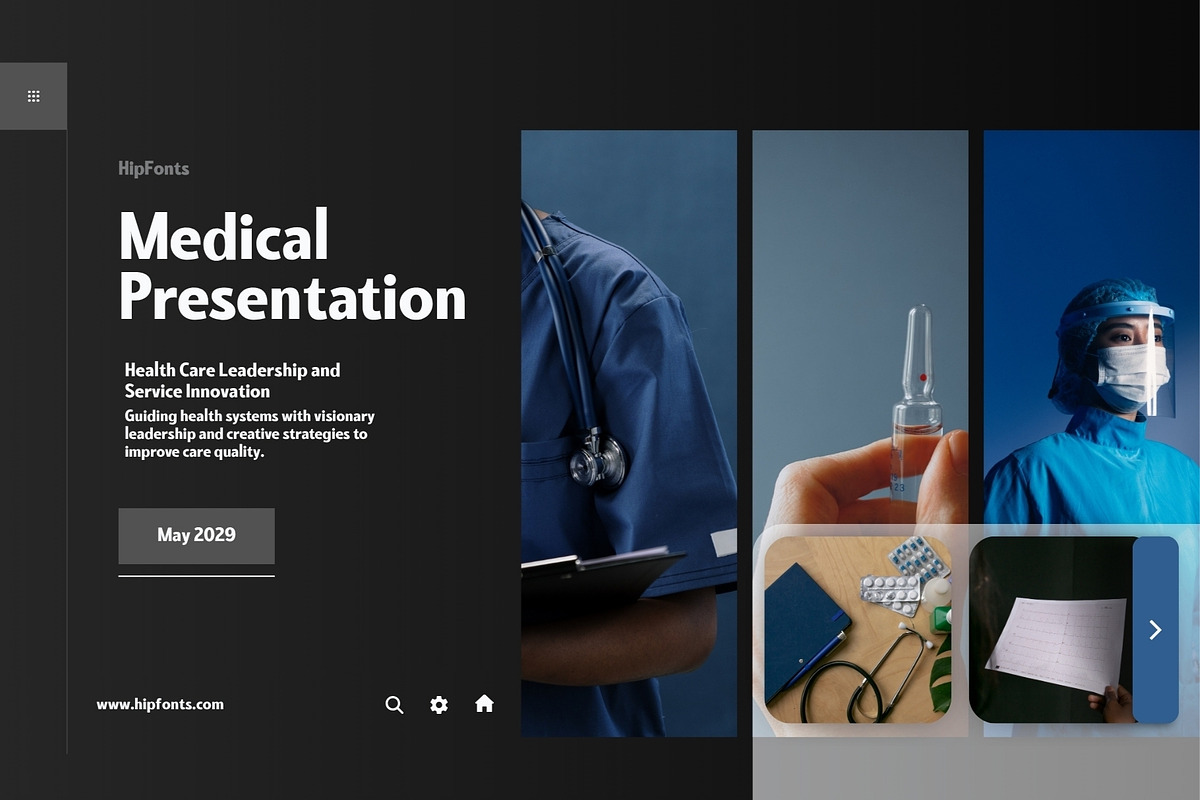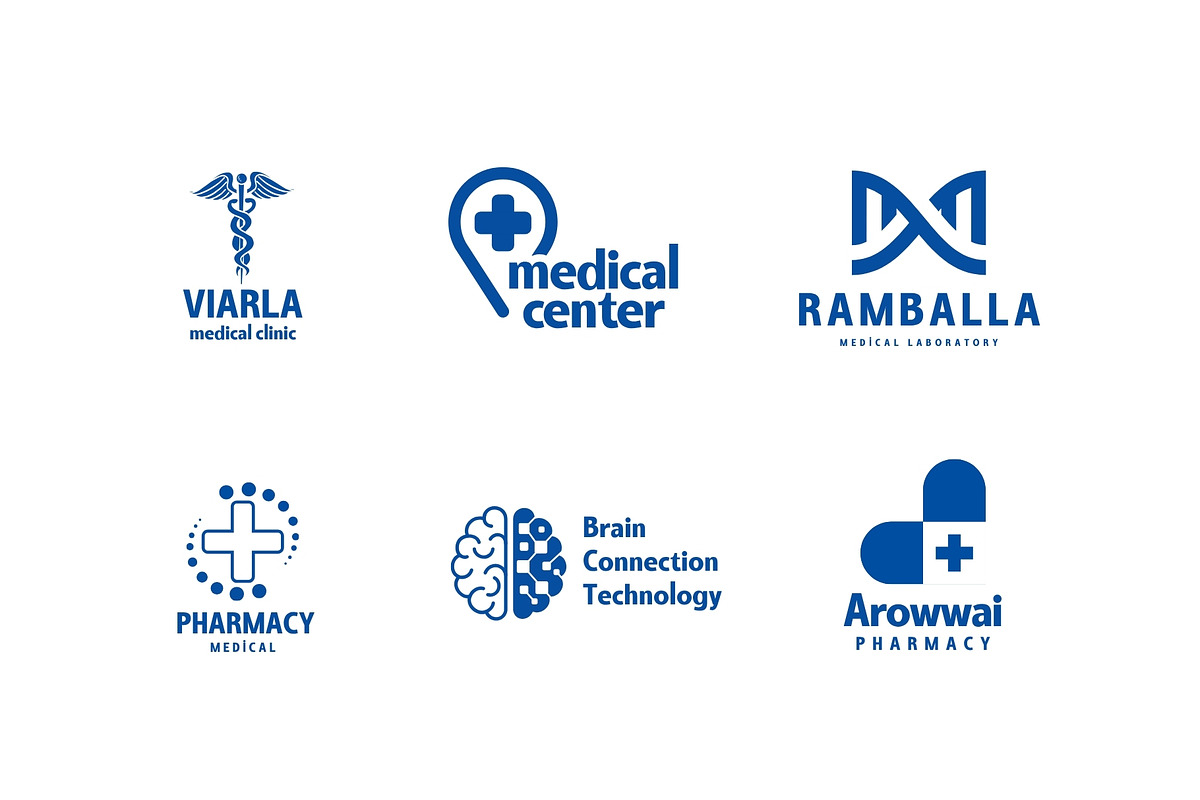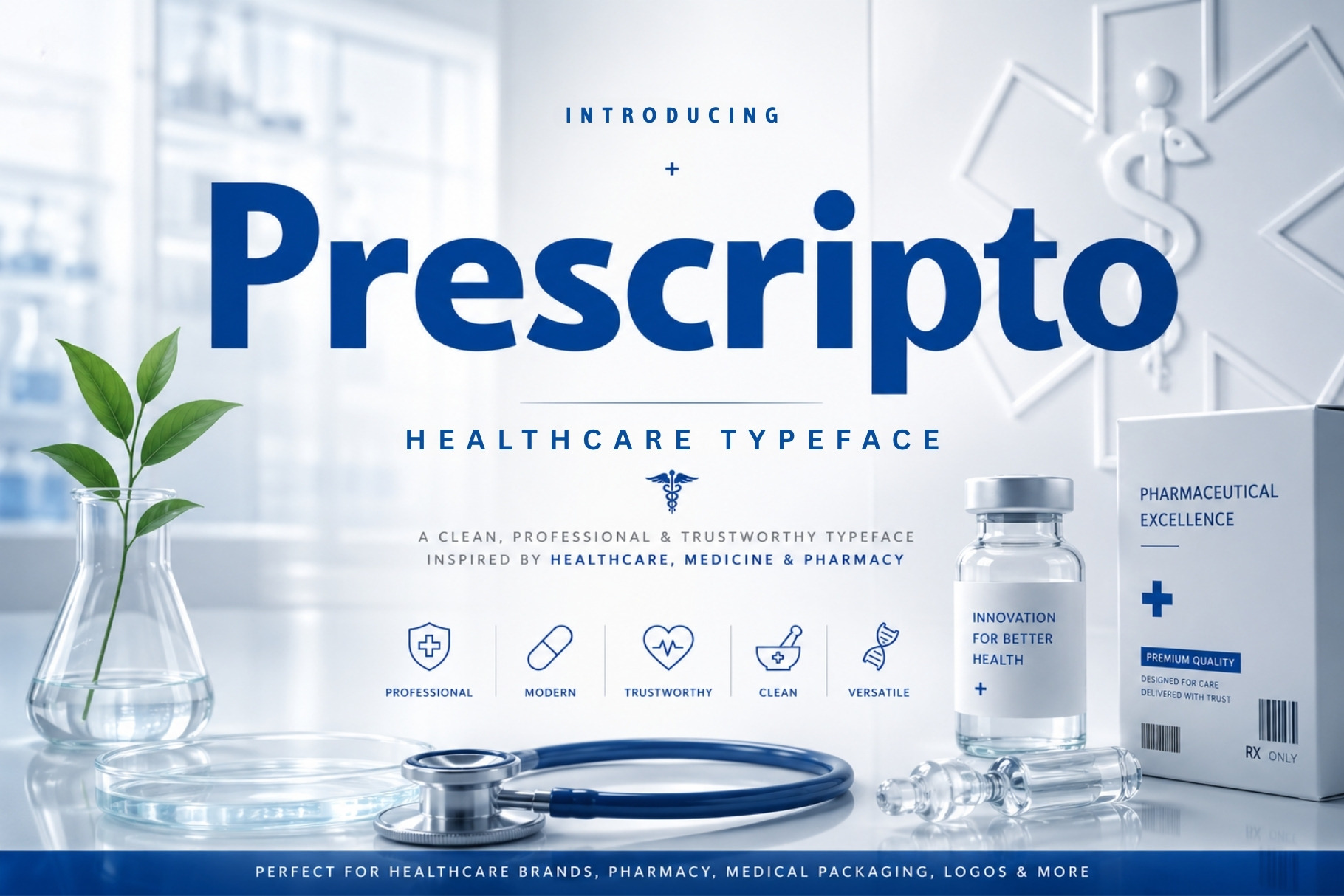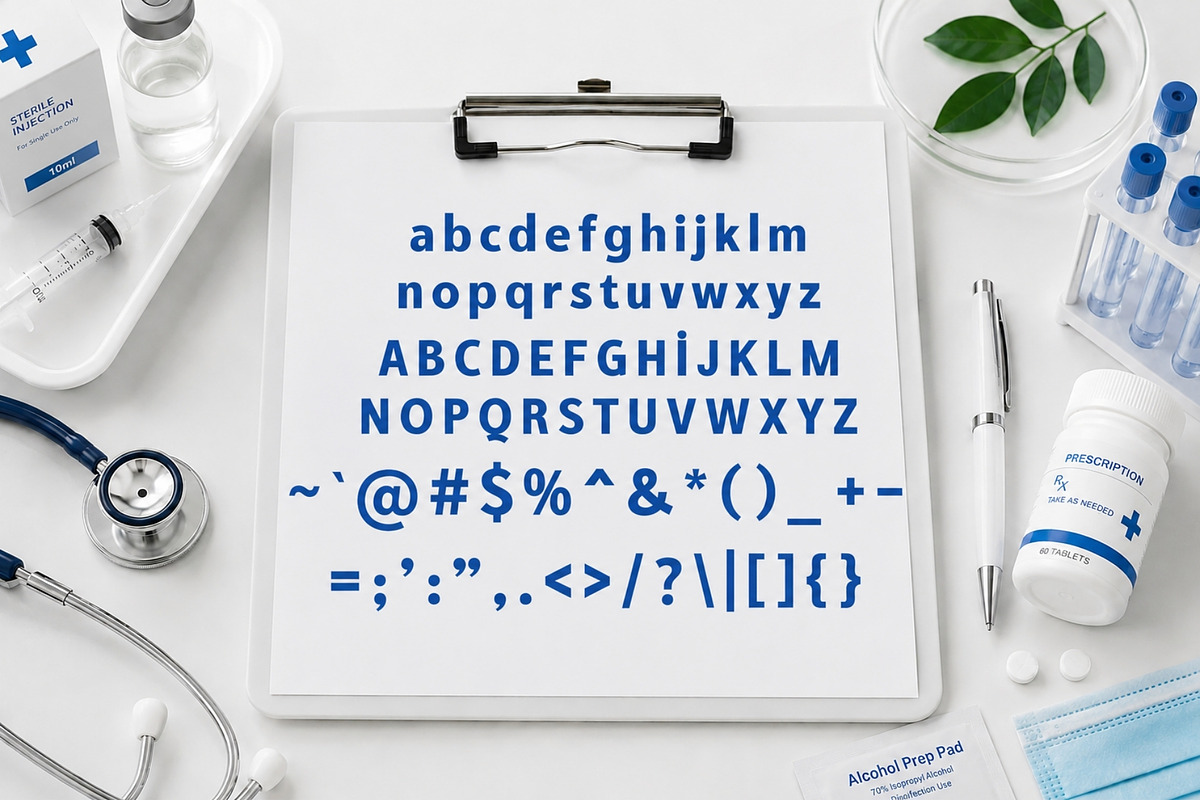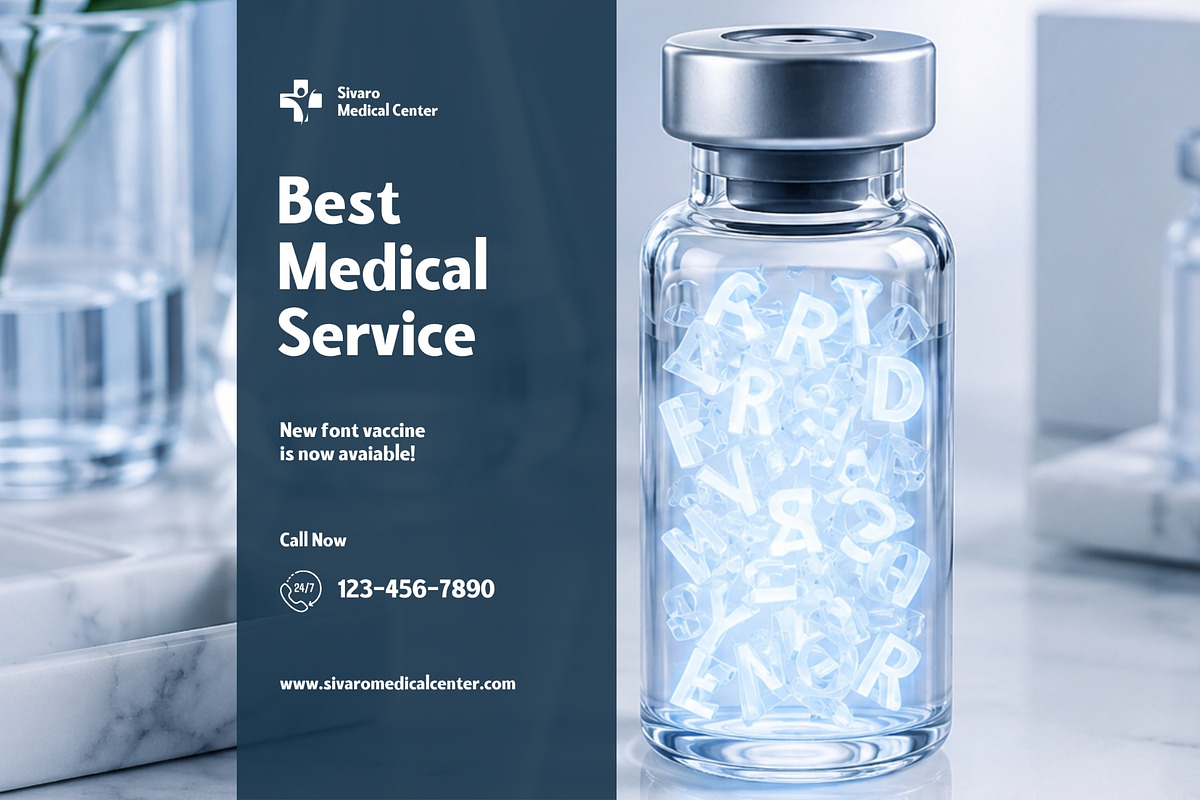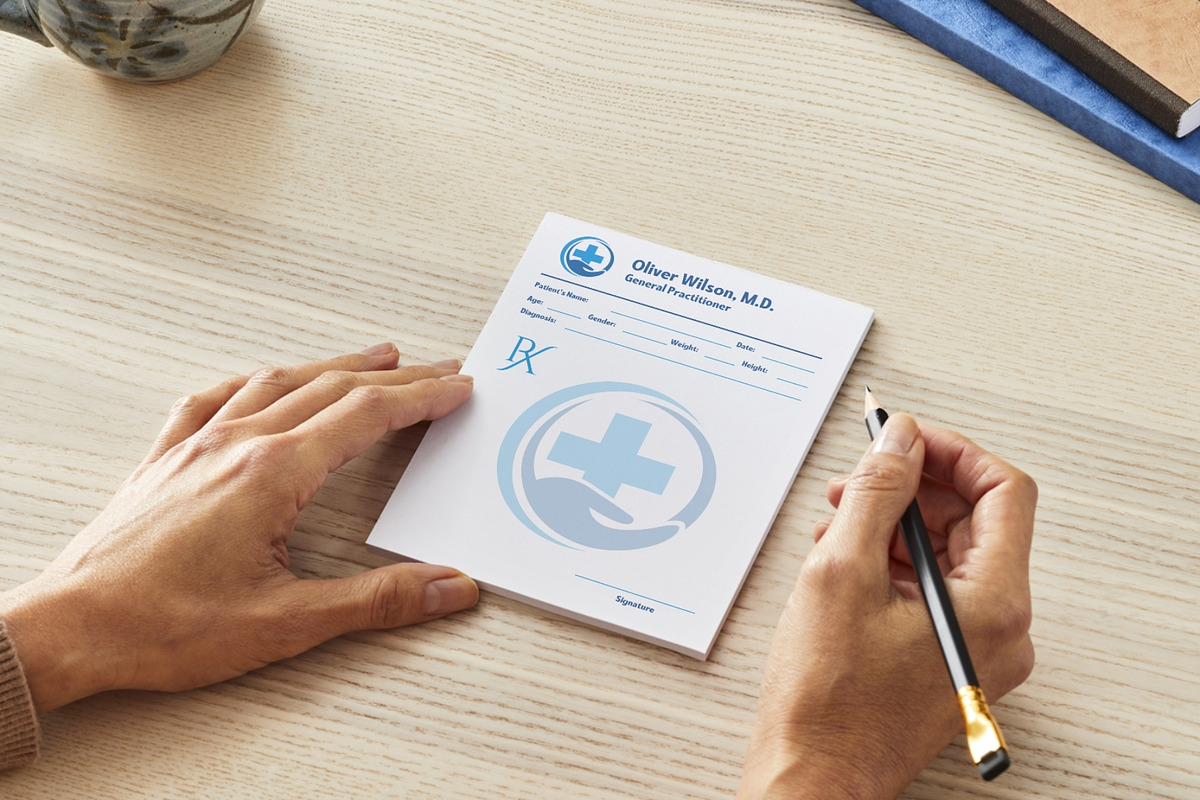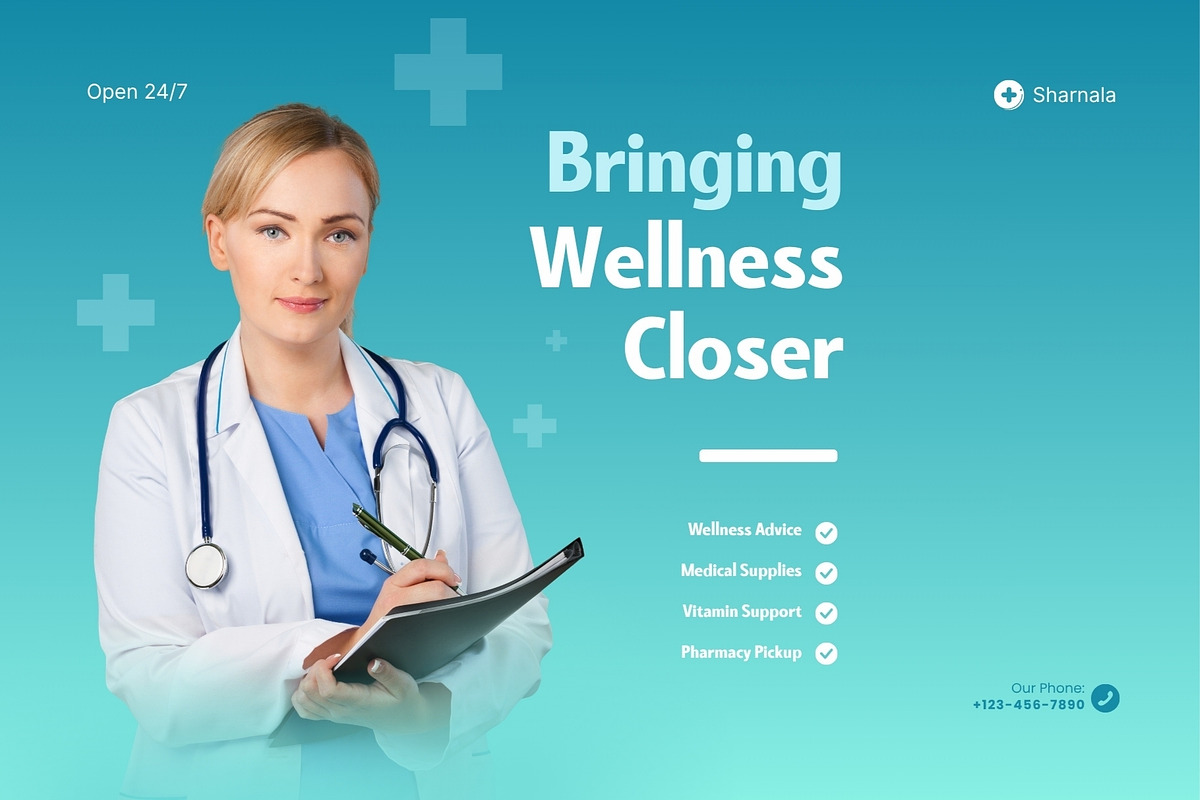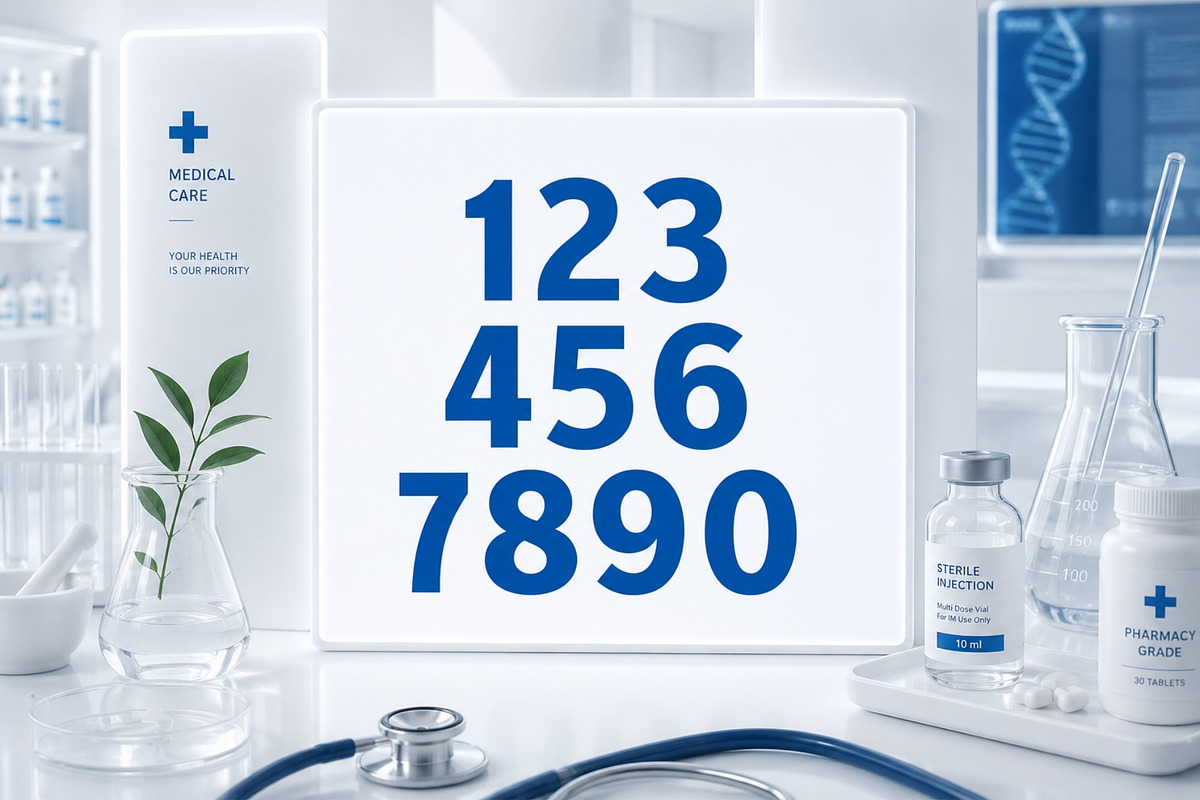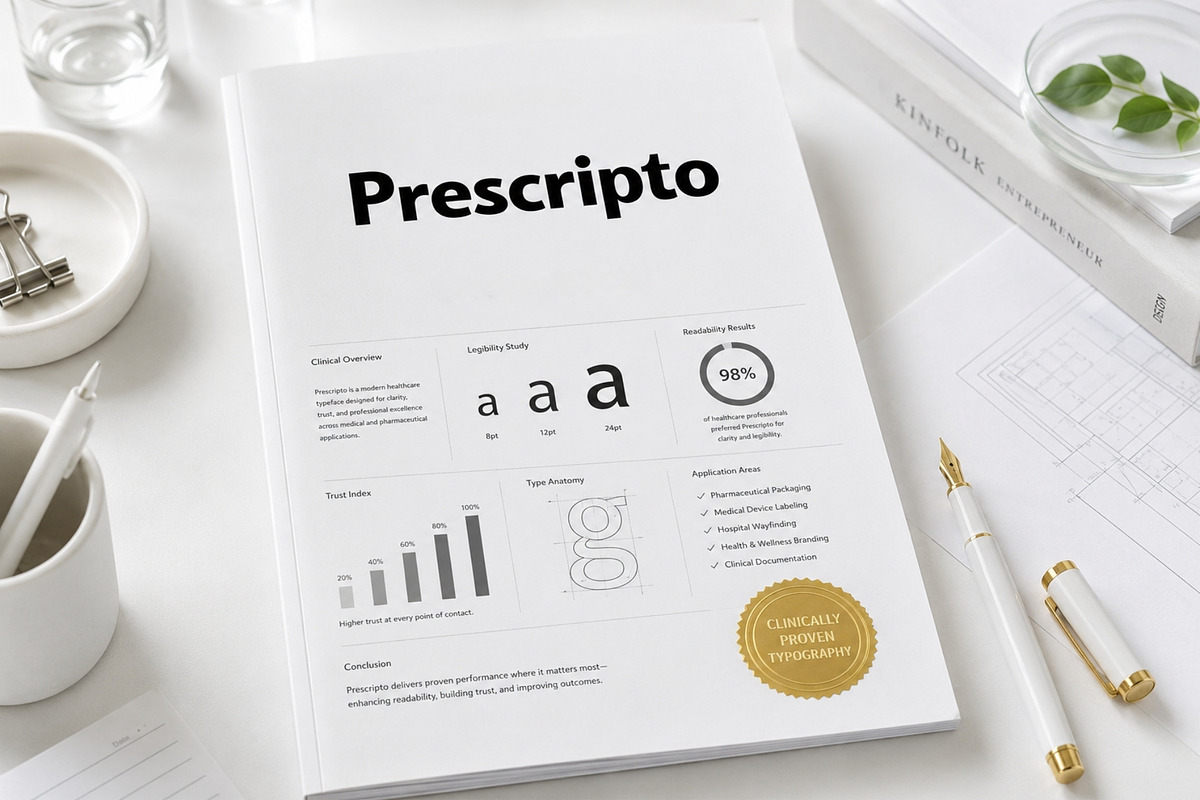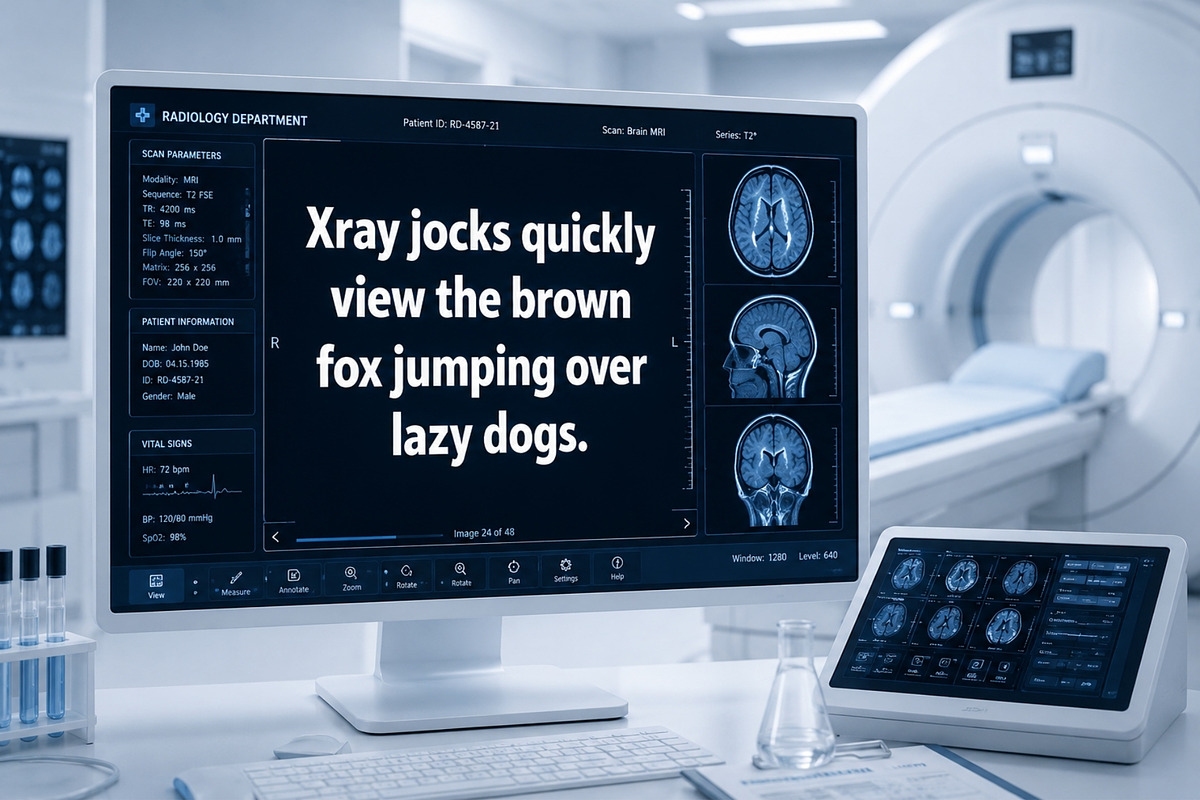
Prescripto - Medical Healthcare Font
Prescripto is a modern healthcare-inspired typeface designed to communicate trust, clarity, and professionalism. Inspired by the visual language of hospitals, pharmacies, medical research institutions, prescription drug packaging, healthcare technology companies, and wellness brands, this typeface delivers a clean and highly legible appearance that feels both approachable and authoritative.
With its balanced proportions, smooth curves, and contemporary geometric structure, Prescripto was carefully crafted for environments where readability and confidence matter most. Whether you're designing pharmaceutical packaging, medical brochures, healthcare websites, clinic branding, patient information sheets, prescription labels, wellness products, or healthcare mobile applications, Prescripto helps your message feel credible and professional.
The typeface combines the precision of modern medical design with the warmth needed to build trust with patients and consumers. Its sleek and versatile character set makes it suitable for both digital and print applications, allowing designers to create clean, organized, and visually appealing healthcare communications.
Prescripto is perfect for pharmaceutical companies, hospitals, clinics, dentists, veterinarians, medical startups, telehealth platforms, wellness brands, biotech firms, healthcare software, medical packaging, laboratory reports, signage systems, educational materials, and much more.
Clean and modern healthcare-inspired design
Professional and trustworthy appearance
Excellent readability across print and digital media
Ideal for healthcare, pharmacy, medical, and wellness branding
Uppercase and lowercase letters
Numbers and punctuation
Perfect for logos, packaging, websites, mobile apps, presentations, brochures, signage, and advertising
Whether you're creating the next healthcare brand, designing prescription packaging, or building a cutting-edge medical technology platform, Prescripto delivers the clarity, confidence, and professionalism your projects deserve.